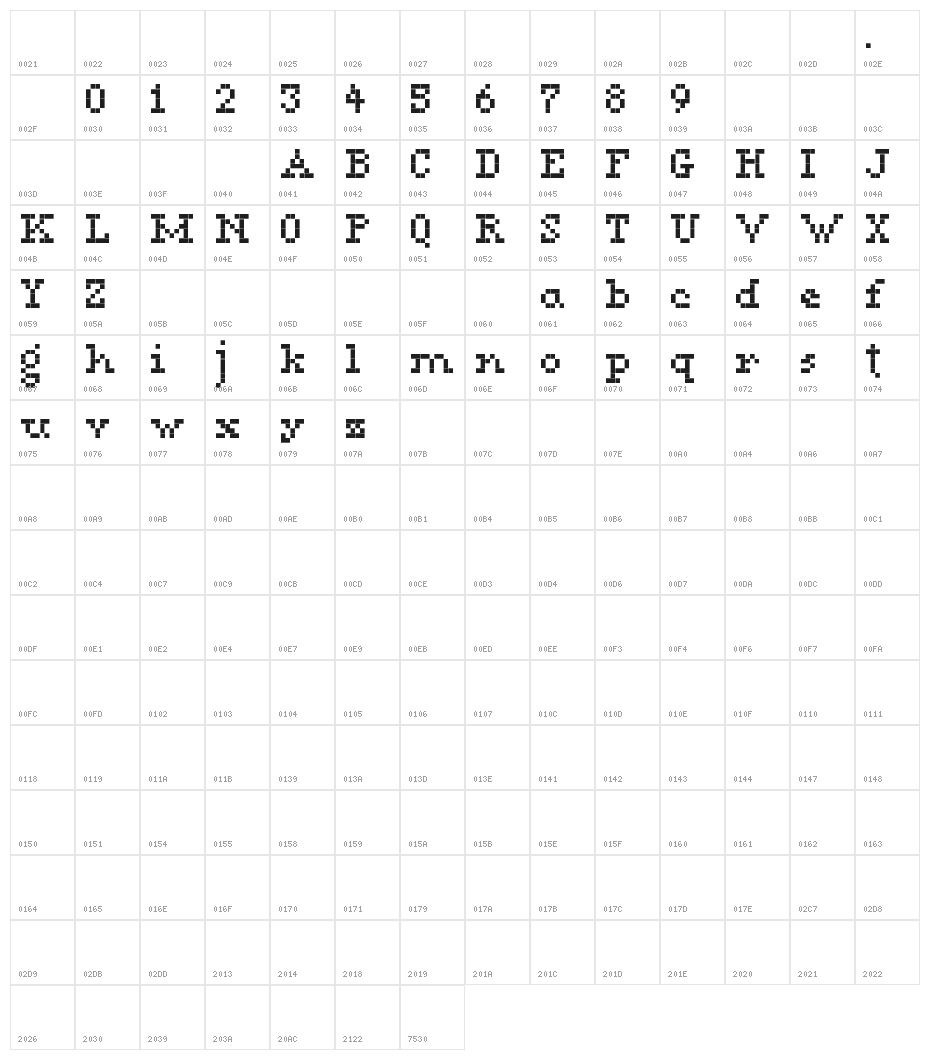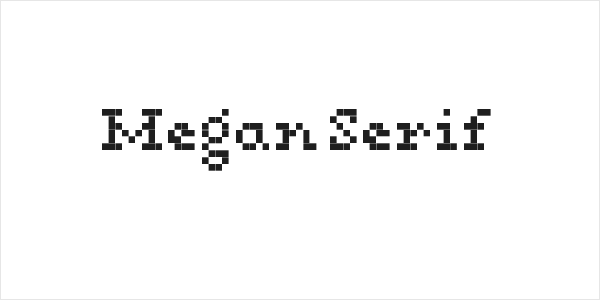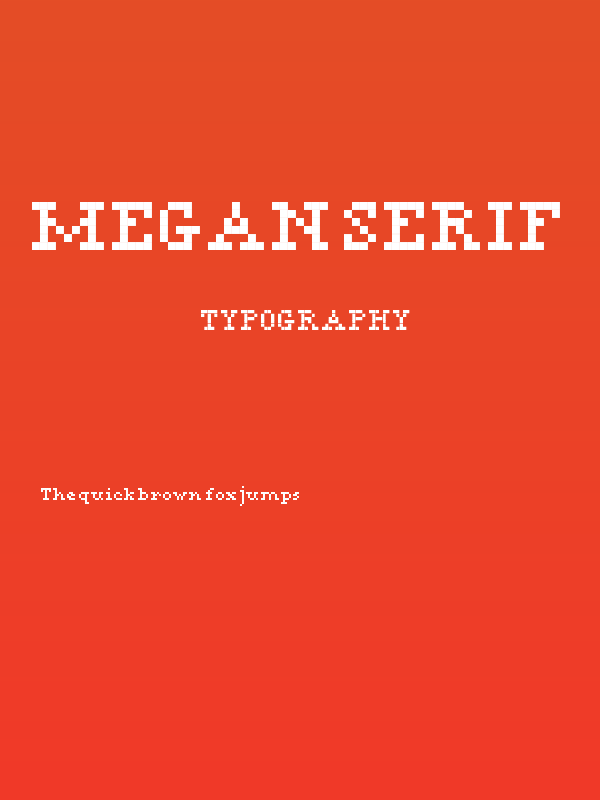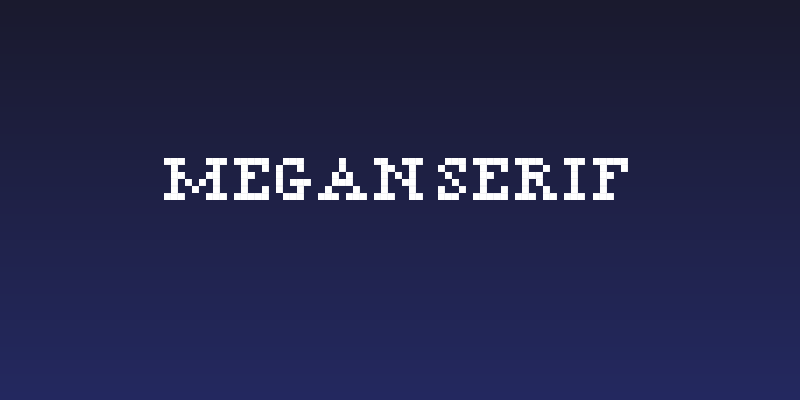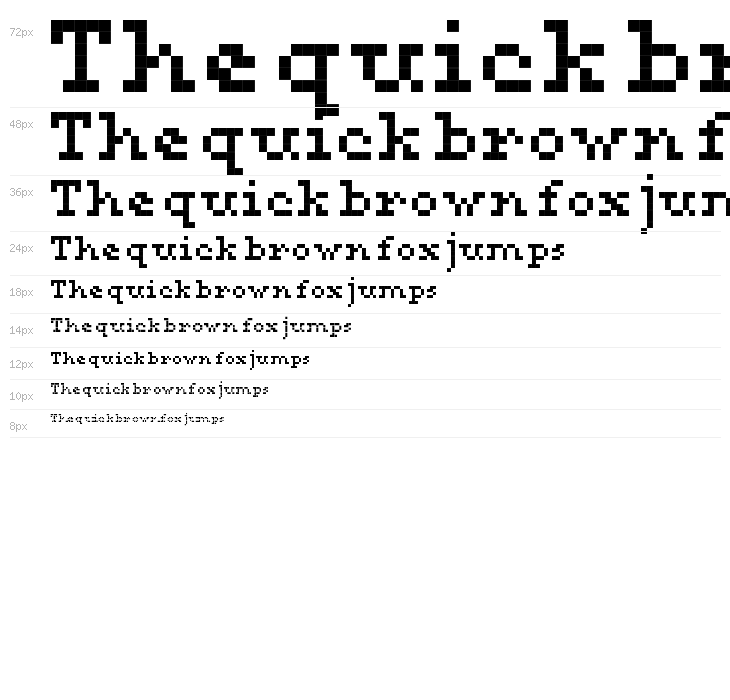
Megan Serif Font
Megan Serif Description
This font features a pixelated, blocky design that evokes a retro, digital aesthetic. The characters are constructed with a grid-like pattern, giving them a distinct, geometric appearance. The uppercase letters are bold and prominent, while the lowercase letters maintain the same pixelated style, offering a cohesive look. The numerals are similarly designed, ensuring consistency across all character sets. This font's unique style makes it stand out, reminiscent of early computer graphics or video game text, providing a nostalgic feel.
Overall StyleRetro, Digital
Use CaseHeadlines, Logos, Digital Art
Proposed ProjectsIdeal for retro-themed designs, video game graphics, digital art projects, and any creative work seeking a nostalgic, digital look.